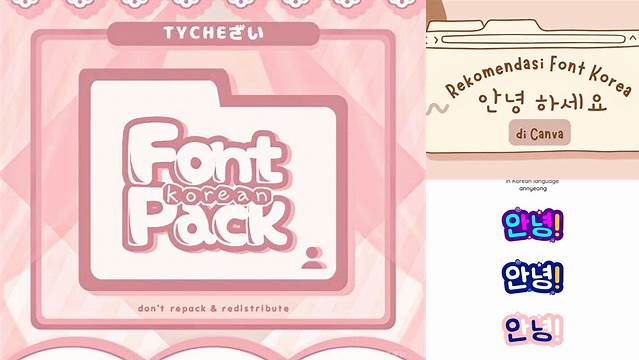
Cute Korean Fonts: Copy & Paste For Aesthetic Designs
Are you guys looking to add a touch of Korean aesthetics to your digital presence? Want to spice up your social media posts, your blog, or even your design projects with some super cute Korean fonts? Well, you've come to the right place! In this article, we're diving deep into the world of Korean typography, showing you how to easily copy and paste these adorable fonts and infuse your content with that special K-style charm. So, buckle up, and let's get started on this font-tastic journey!
Understanding the Appeal of Cute Korean Fonts
Korean fonts, especially the cute ones, have a unique appeal that's been captivating audiences worldwide. But what exactly makes these fonts so special? Well, a big part of it is the visual harmony and elegance they bring to the table. The Korean script, Hangul, is known for its geometric shapes and flowing lines, which lend themselves beautifully to various aesthetic styles. Think about it – the circles, squares, and lines create a balanced and pleasing visual rhythm that's naturally eye-catching. When you see these fonts, they just feel soothing and stylish, right? This inherent elegance is what makes Korean fonts a fantastic choice for anyone looking to add a touch of sophistication and flair to their projects. Another key factor is how versatile these fonts are. Whether you're going for a minimalist, modern vibe or a more playful, whimsical feel, there's a Korean font out there that fits the bill. From the clean and crisp lines of sans-serif Hangul fonts to the delicate and ornate strokes of handwritten styles, you have a whole spectrum of options to play with. This versatility allows you to use Korean fonts in a wide range of contexts, whether it's for designing a chic website, creating eye-catching social media graphics, or adding a personal touch to your digital documents. Plus, the cultural significance of Korean fonts can't be overlooked. With the rise of K-pop, K-dramas, and Korean culture in general, there's a growing appreciation for all things Korean, including its unique writing style. Using cute Korean fonts can be a way to tap into this cultural wave, adding an authentic and trendy vibe to your content. It's like giving a nod to a culture that's known for its innovation and style. For instance, imagine using a stylish Korean font in your travel blog post about your recent trip to Seoul – it instantly adds a layer of cultural richness and visual appeal. Or, if you're a K-pop fan, using Hangul fonts in your fan art or social media posts can make your content feel even more connected to the fandom. In the world of design, where standing out is everything, using unique Korean fonts can give you a serious edge. These fonts aren't something you see every day, which means they can help your content grab attention and make a lasting impression. Think about using them in your branding materials, like your logo or website headers. A well-chosen Korean font can convey a sense of modernity, creativity, and international flair – all qualities that can help your brand stand out from the crowd. So, whether you're drawn to their visual appeal, their versatility, or their cultural significance, cute Korean fonts offer a fantastic way to enhance your creative projects and add a touch of global style. They're more than just pretty letters; they're a way to tell a story and connect with a wider audience.
Finding the Perfect Cute Korean Fonts
Okay, so you're sold on the idea of using cute Korean fonts, but where do you actually find them? Don't worry, guys, the internet is your best friend here! There are tons of resources out there where you can discover and download a wide variety of Hangul fonts, from the super bubbly and playful to the sleek and sophisticated. One of the first places you should check out is Google Fonts. It's a fantastic resource because it offers a huge selection of fonts that are completely free to use, even for commercial projects. Just head over to the Google Fonts website, filter by the Korean language, and you'll be presented with a bunch of options. You can preview the fonts, see how they look in different sizes and styles, and even download them directly to your computer. Plus, since Google Fonts are designed to be web-friendly, they're perfect for using on your website or blog. Another great place to hunt for fonts is specialized font websites like DaFont, FontSpace, and MyFonts. These sites are like treasure troves for font lovers, with massive libraries of fonts created by designers from all over the world. While some fonts are free, others may require a purchase, so make sure to check the licensing information before you download anything. These sites often have categories and tags that can help you narrow down your search. For example, you might look for categories like “handwritten,” “display,” or “modern” to find fonts that match your specific style. If you're looking for something really unique, you might want to explore Korean font foundries and design studios. Many talented Korean designers create their own fonts, and you can often find them on sites like Behance or personal design blogs. These fonts may come with a price tag, but they can be worth it if you're looking for something truly special and original. Purchasing fonts directly from the designer also supports the creative community, which is always a good thing! When you're browsing for fonts, keep in mind the vibe you're going for. Are you working on a project that needs a super playful and fun font? Or do you need something more elegant and refined? Think about the overall aesthetic of your project and choose a font that complements it. For example, a cute, rounded font might be perfect for a children's book or a playful social media post, while a more formal, serif font might be better suited for a business presentation or a website header. Don't be afraid to experiment with different fonts and try them out in your designs. Font pairing is an art in itself, and sometimes the most unexpected combinations can create the most stunning results. Try pairing a bold, eye-catching Hangul font with a simple, clean English font for a balanced and visually appealing look. Also, remember to pay attention to the licensing terms of the fonts you download. Some fonts are free for personal use but require a commercial license if you're using them for business purposes. It's always best to double-check the licensing information to avoid any legal issues down the road. Finding the perfect Korean font can take some time and effort, but it's totally worth it when you find that one font that perfectly captures the essence of your project. So, dive in, explore the world of Hangul typography, and have fun discovering the amazing fonts that are out there!
Copying and Pasting Cute Korean Fonts: The Easy Way
Aesthetic Uses of Cute Korean Fonts
Now, let's talk about the fun part: how you can actually use these cute Korean fonts to amp up the aesthetic appeal of your projects! There are so many creative ways to incorporate Hangul typography into your designs, whether you're working on social media content, website design, branding materials, or even personal projects. One of the most popular ways to use Korean fonts is in social media graphics. Think about it: those Instagram posts, stories, and banners are prime real estate for some eye-catching typography. Imagine creating a quote graphic with a beautiful, flowing Korean font – it's sure to grab attention and add a touch of elegance to your feed. You can also use Hangul fonts in your captions and bios to add a bit of personality and cultural flair. For example, if you're a K-pop fan, you could use a cute Korean font to write your favorite group's name or a catchy phrase from one of their songs. Or, if you're a travel blogger, you could use Hangul fonts in your posts about your adventures in Korea, adding an authentic touch to your content. Website design is another area where cute Korean fonts can really shine. A well-chosen Hangul font can add a unique and modern touch to your website's headers, menus, and body text. Just imagine a sleek, minimalist website with a bold, stylish Korean font as the main headline – it's a surefire way to make a statement and stand out from the crowd. When using Korean fonts on your website, it's important to consider readability and accessibility. Make sure the font size is large enough and the contrast between the text and background is sufficient. You might also want to pair your Hangul font with a clean and legible English font to ensure that your content is easy to read for all visitors. Branding is another area where Korean fonts can be a game-changer. If you're looking to create a brand identity that's modern, unique, and culturally aware, incorporating a Hangul font into your logo or marketing materials can be a brilliant move. Think about brands that want to convey a sense of innovation and creativity – a stylish Korean font can be the perfect way to communicate those qualities. For example, a tech startup might use a clean and modern Hangul font in its logo to signal its cutting-edge approach, or a fashion brand might use a more ornate and elegant font to convey a sense of luxury and sophistication. Beyond the professional realm, cute Korean fonts can also be used in a variety of personal projects. Think about creating custom invitations for a party or a wedding, designing a unique birthday card, or even adding a personal touch to your journal or scrapbook. Using Hangul fonts in these projects can make them feel extra special and meaningful, especially if you have a connection to Korean culture or language. You can also use Korean fonts in your digital art and graphic designs. Whether you're creating posters, flyers, or social media graphics, incorporating Hangul typography can add a unique visual element and help your designs stand out. Experiment with different font styles, sizes, and colors to create eye-catching compositions that showcase the beauty of the Korean script. The key to using cute Korean fonts effectively is to use them thoughtfully and intentionally. Don't just slap a Hangul font on everything – consider the overall aesthetic of your project and choose a font that complements it. Think about the message you're trying to convey and select a font that helps you communicate that message effectively. With a little bit of creativity and experimentation, you can unlock the full potential of cute Korean fonts and use them to create stunning visuals that capture attention and make a lasting impression.
Conclusion: Embrace the Charm of Cute Korean Fonts
So, guys, we've journeyed through the wonderful world of cute Korean fonts, exploring their appeal, how to find them, how to copy and paste them, and all the amazing ways you can use them to enhance your projects. From social media graphics to website design, branding materials to personal creations, these fonts offer a unique blend of elegance, playfulness, and cultural flair that can help your content truly shine. Remember, cute Korean fonts are more than just pretty letters – they're a gateway to a rich and vibrant culture. By incorporating them into your designs, you're not just adding a visual element; you're also paying homage to the beauty and artistry of the Korean script. Whether you're a seasoned designer or just starting out, don't be afraid to experiment with Hangul typography and discover the magic it can bring to your work. Embrace the charm of cute Korean fonts, and let your creativity soar! So go ahead, guys, dive into the world of Hangul typography and let your creativity flow. These cute Korean fonts are waiting to add a touch of magic to your projects, and who knows, you might just discover your new favorite font along the way. Happy designing!